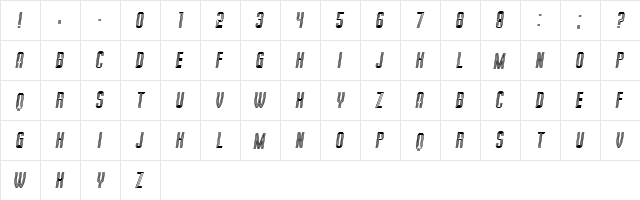
Milk and Chocolate Italic
Design Context for Milk and Chocolate Typeface
Milk and Chocolate is a composed and adaptable typeface that performs quietly and consistently across a wide range of design contexts. Its italic angle brings a sense of urgency and motion to the letterforms.
Pro Tip: Try Milk and Chocolate for annotation and caption copy alongside an upright companion — the contrast in angle creates a dynamic but ordered typographic system.